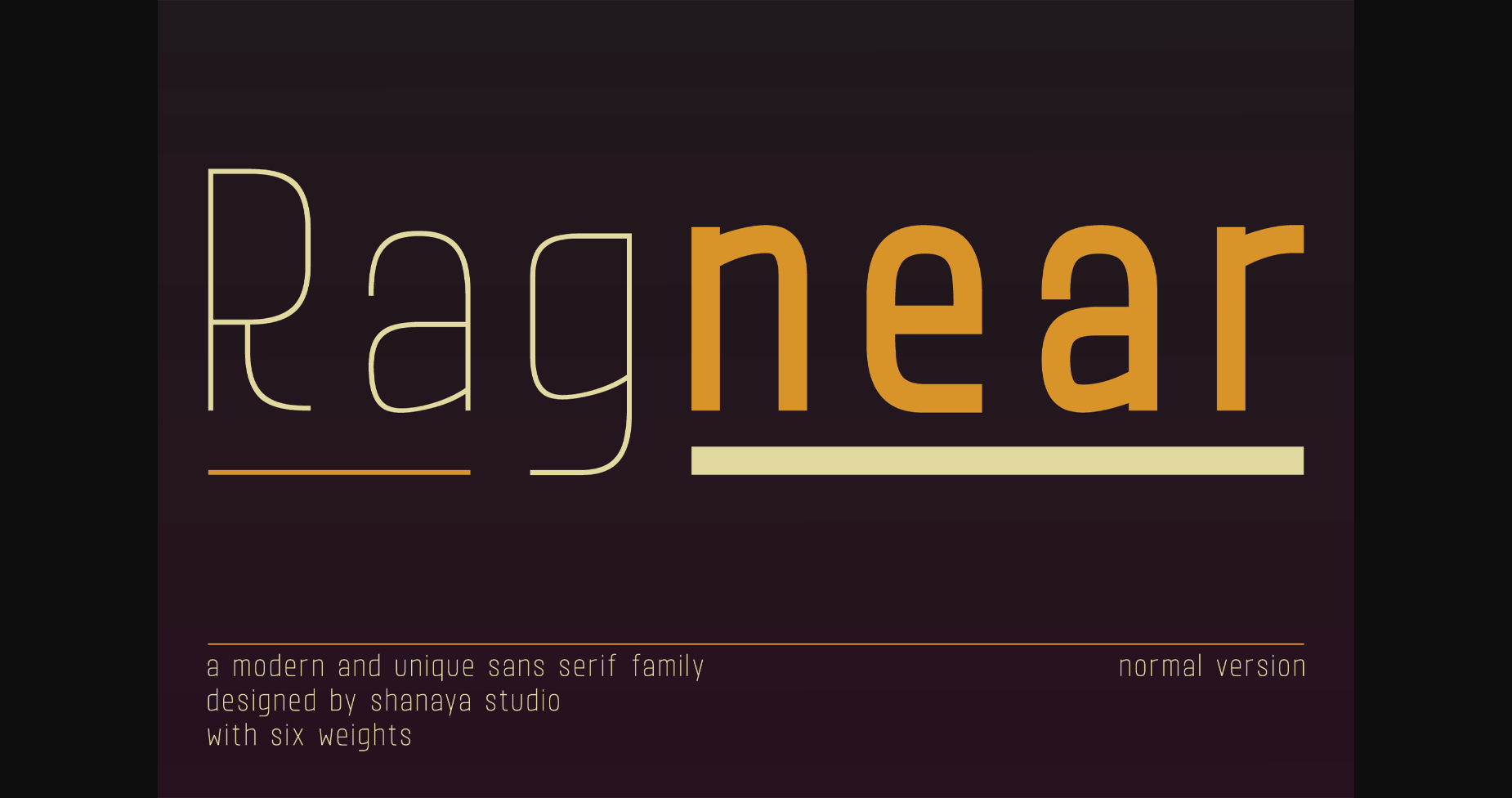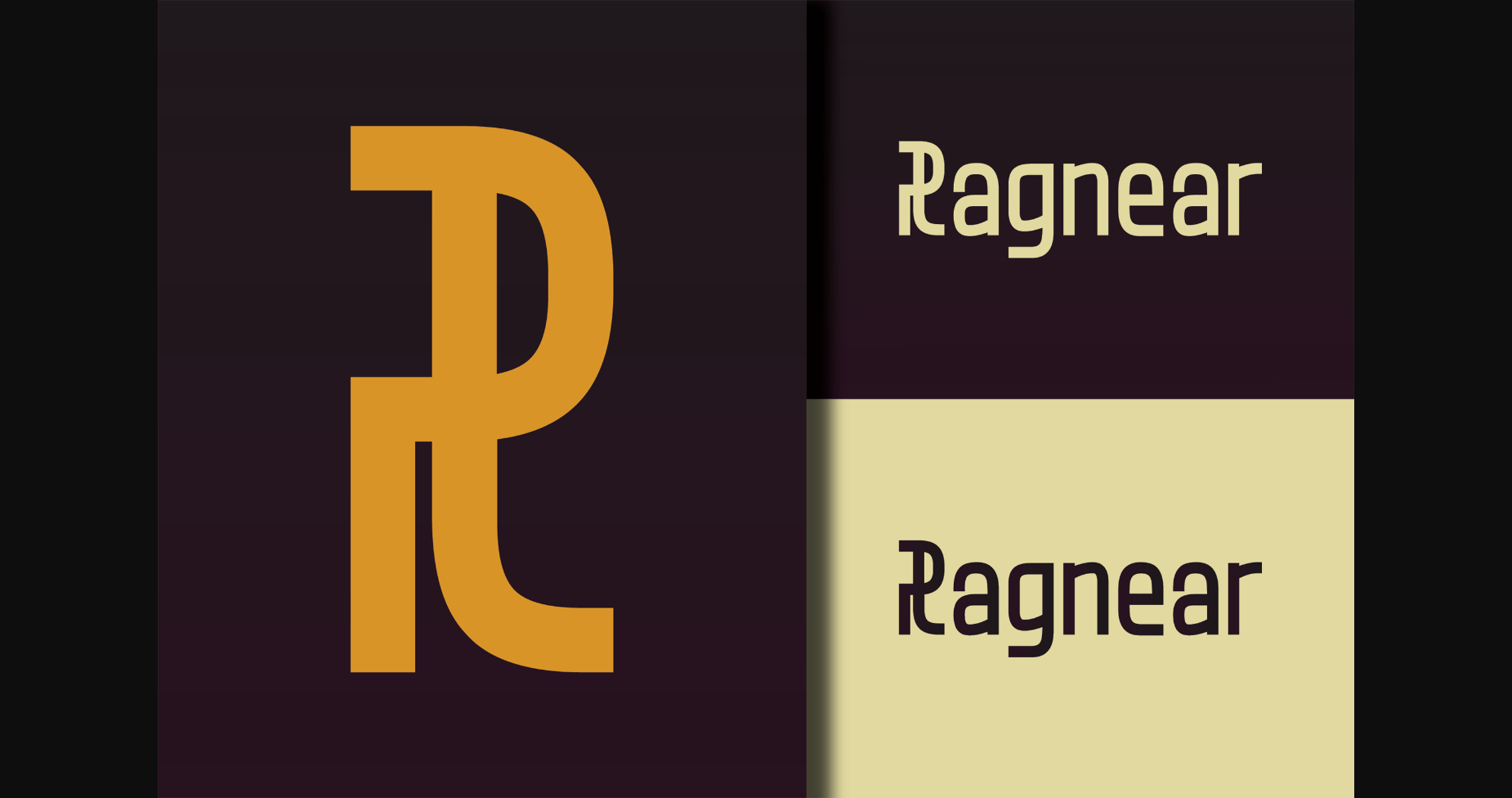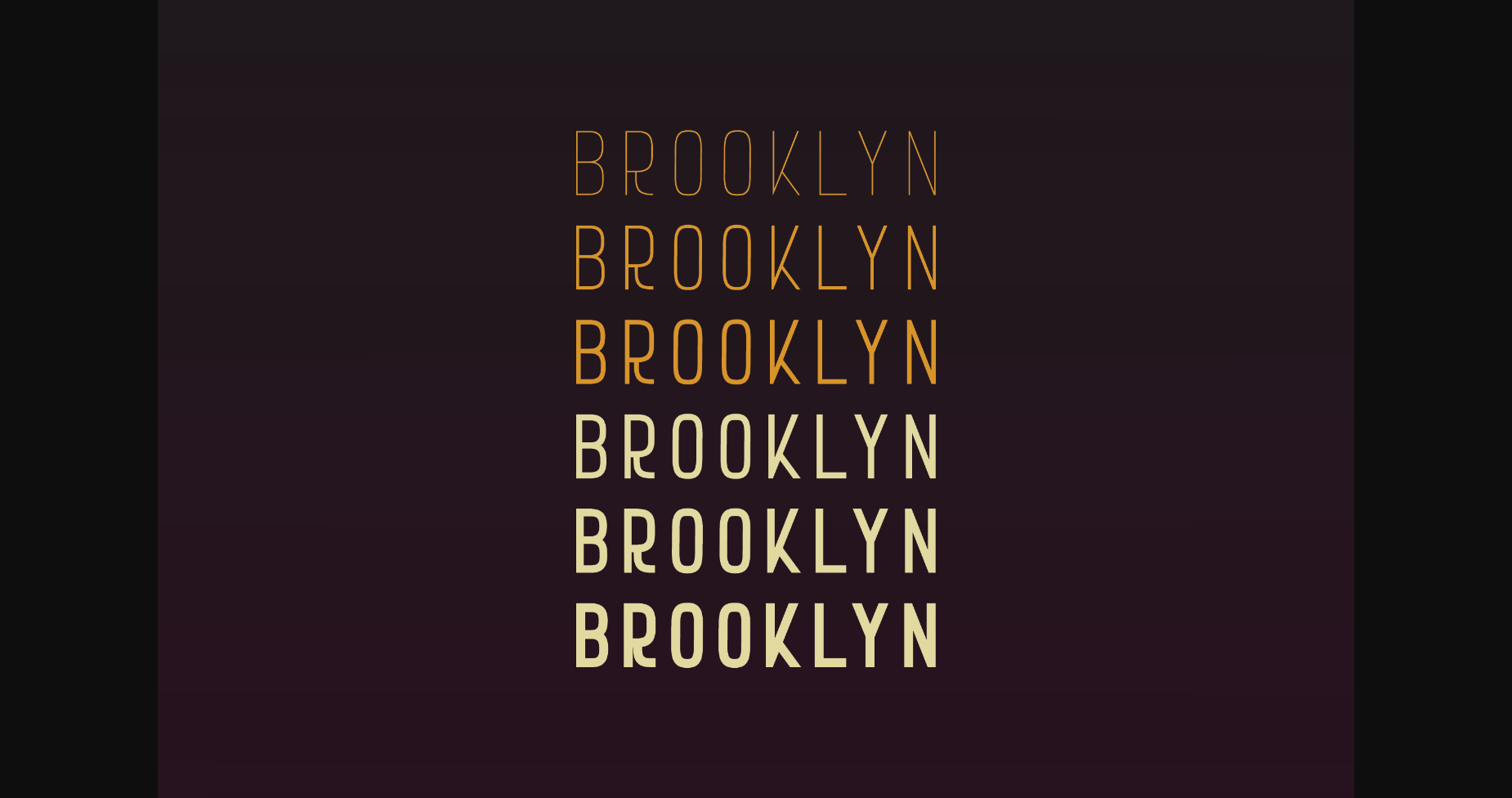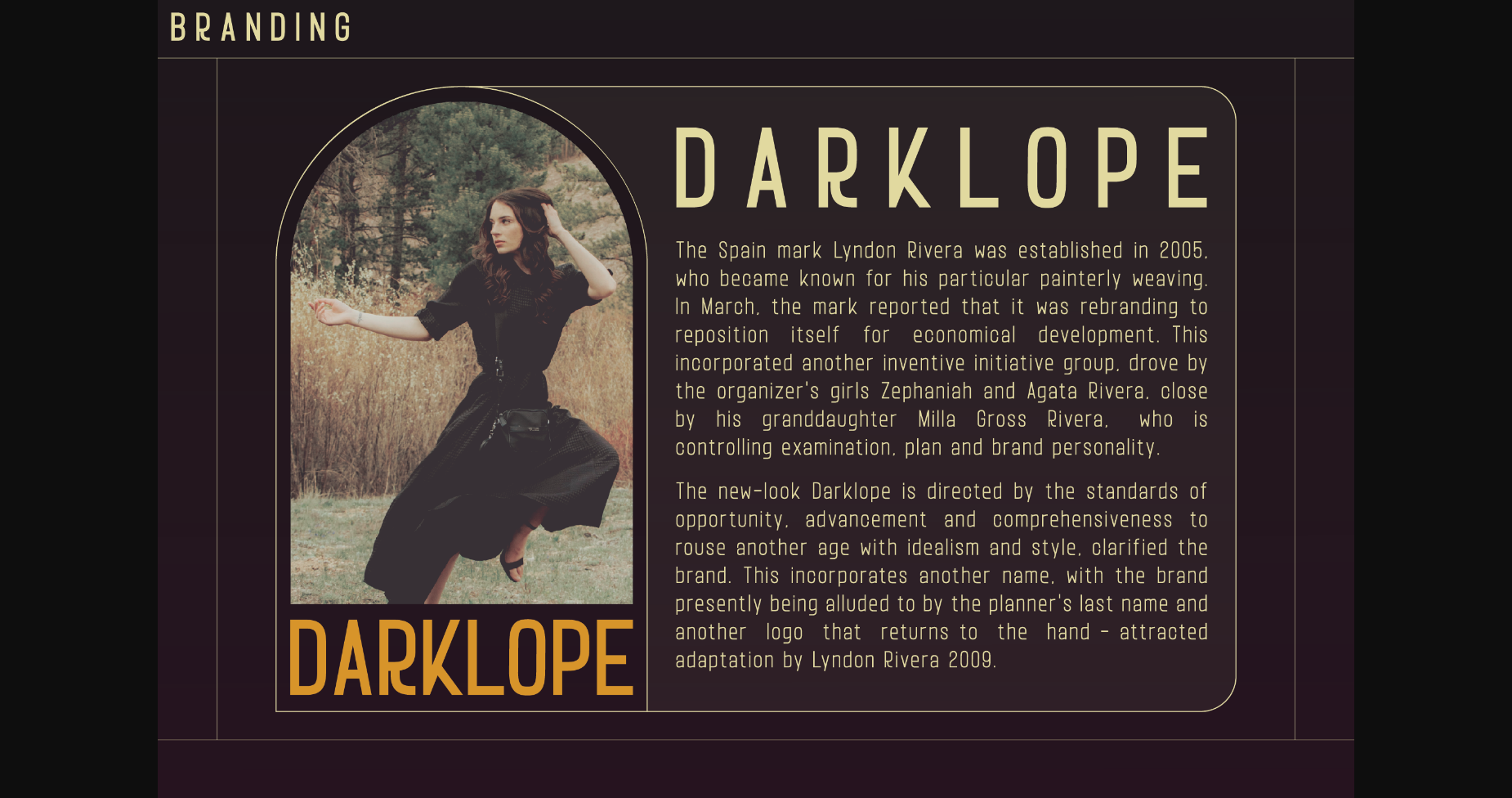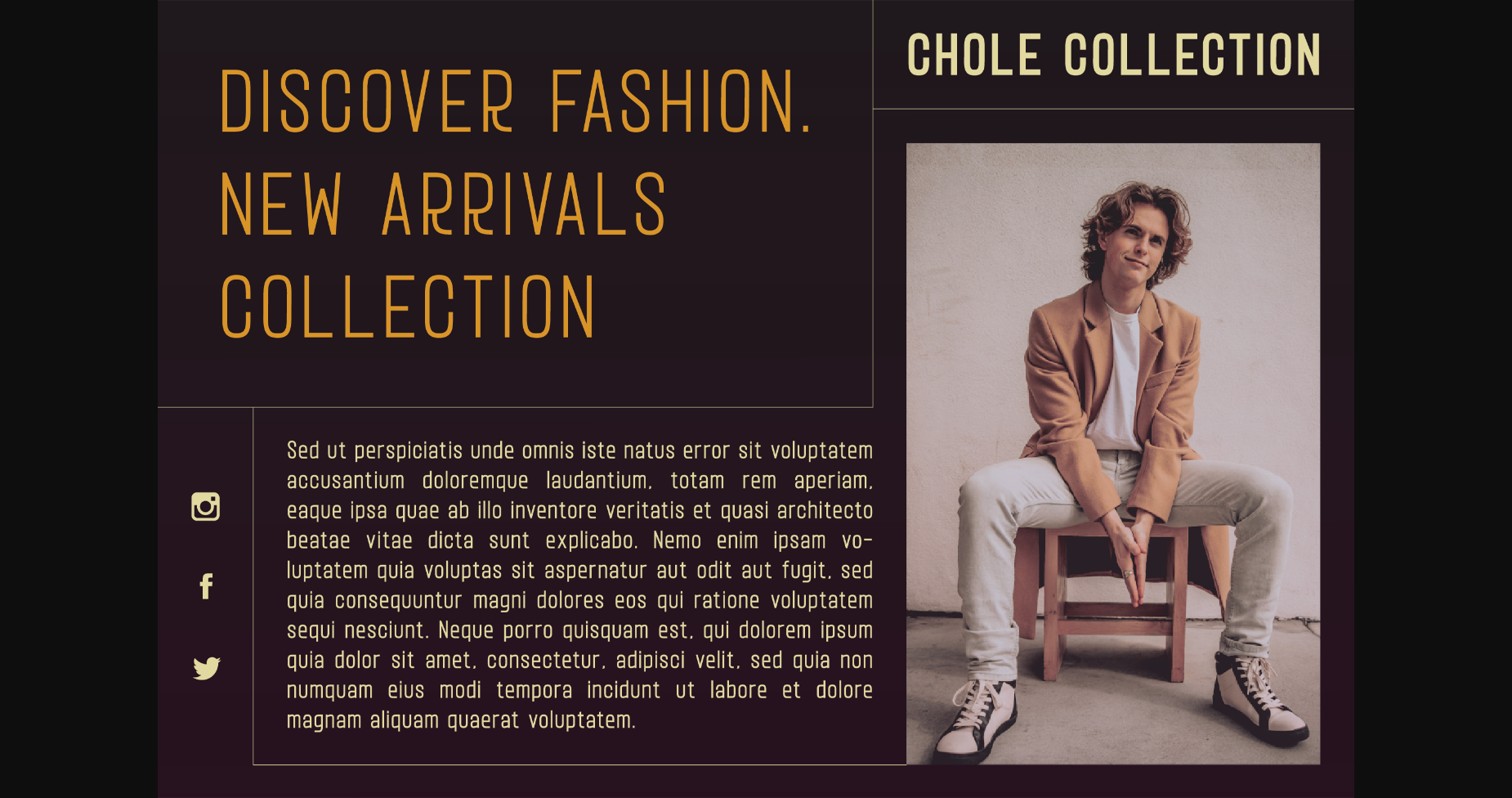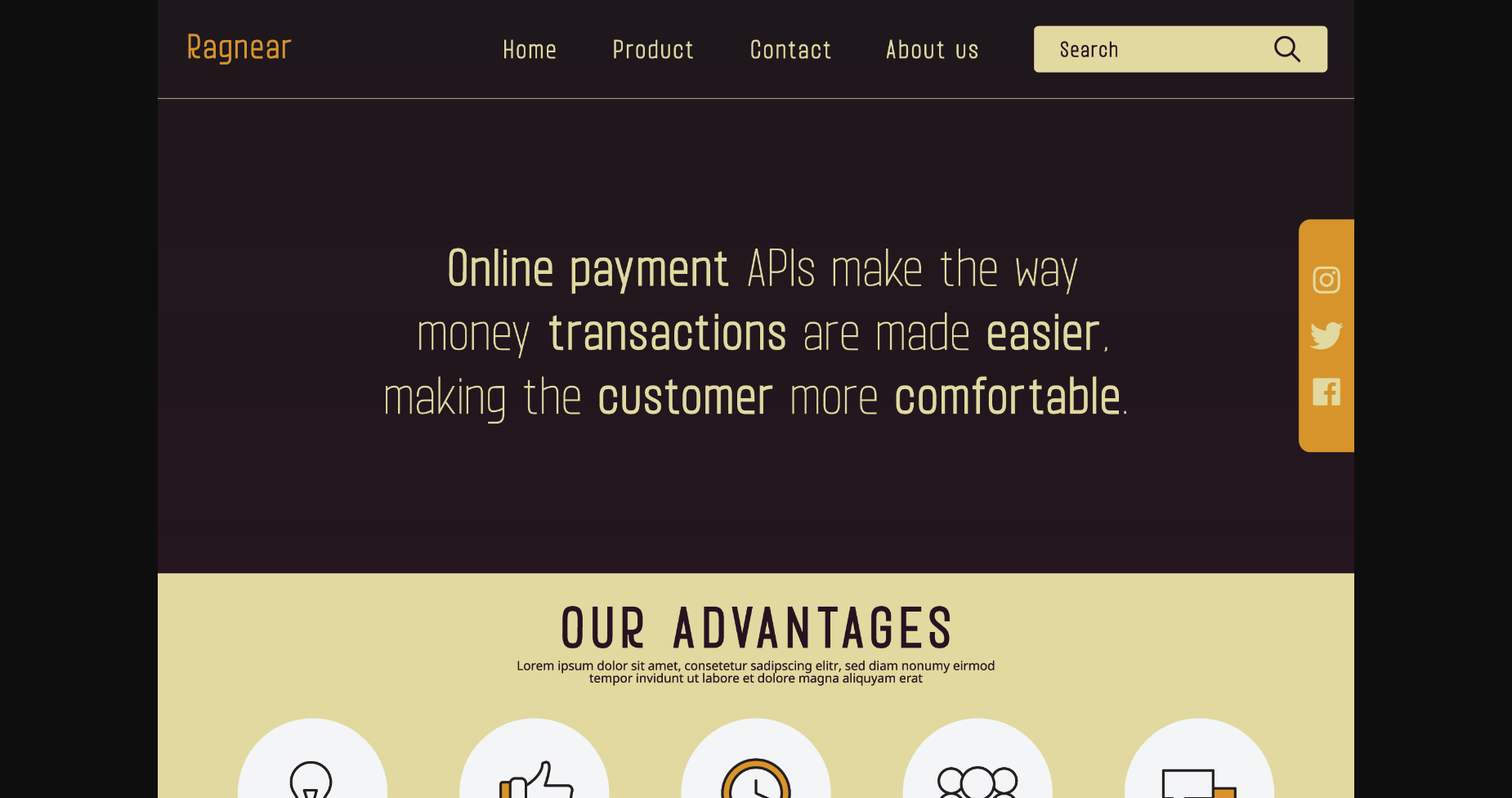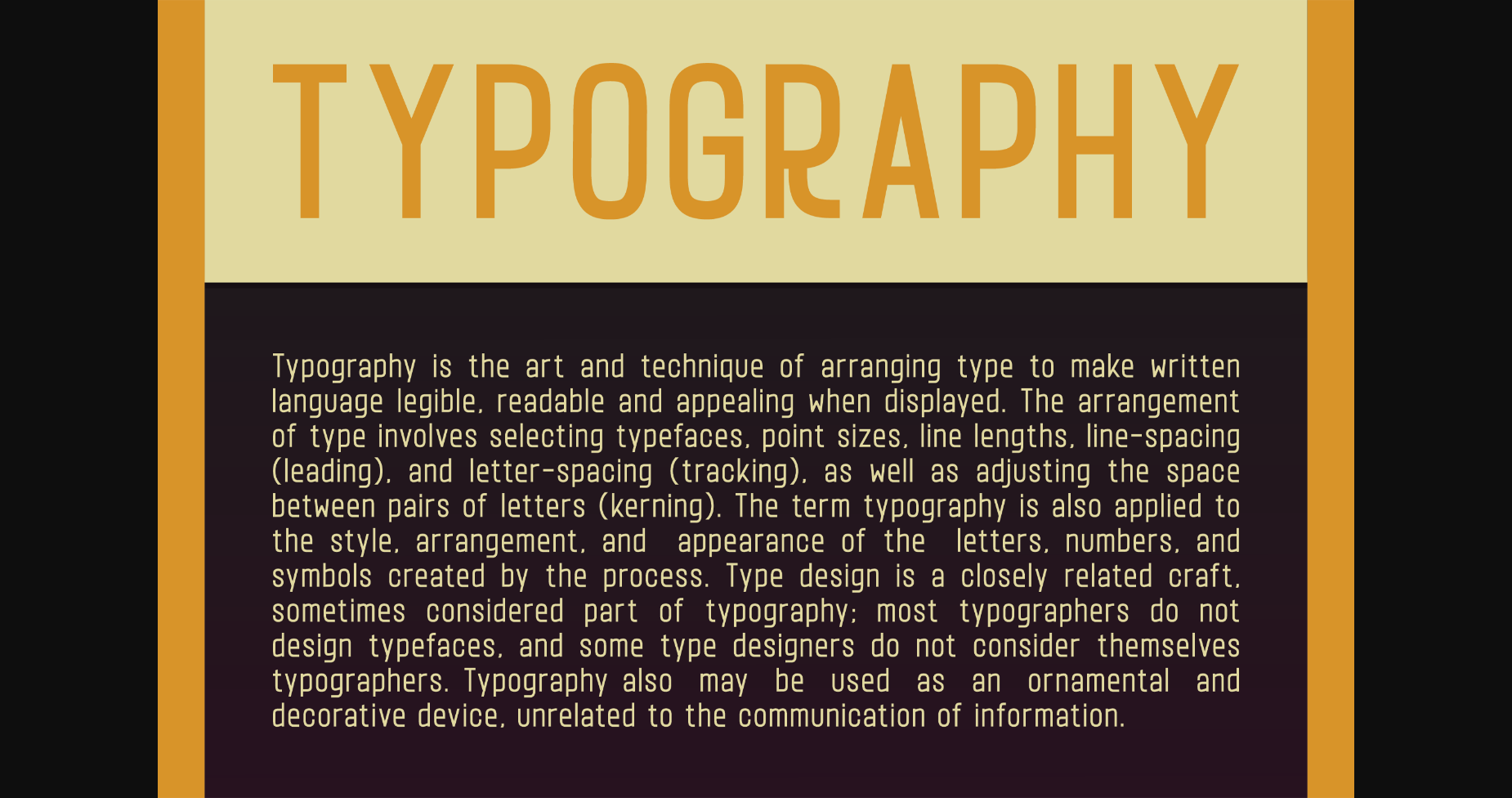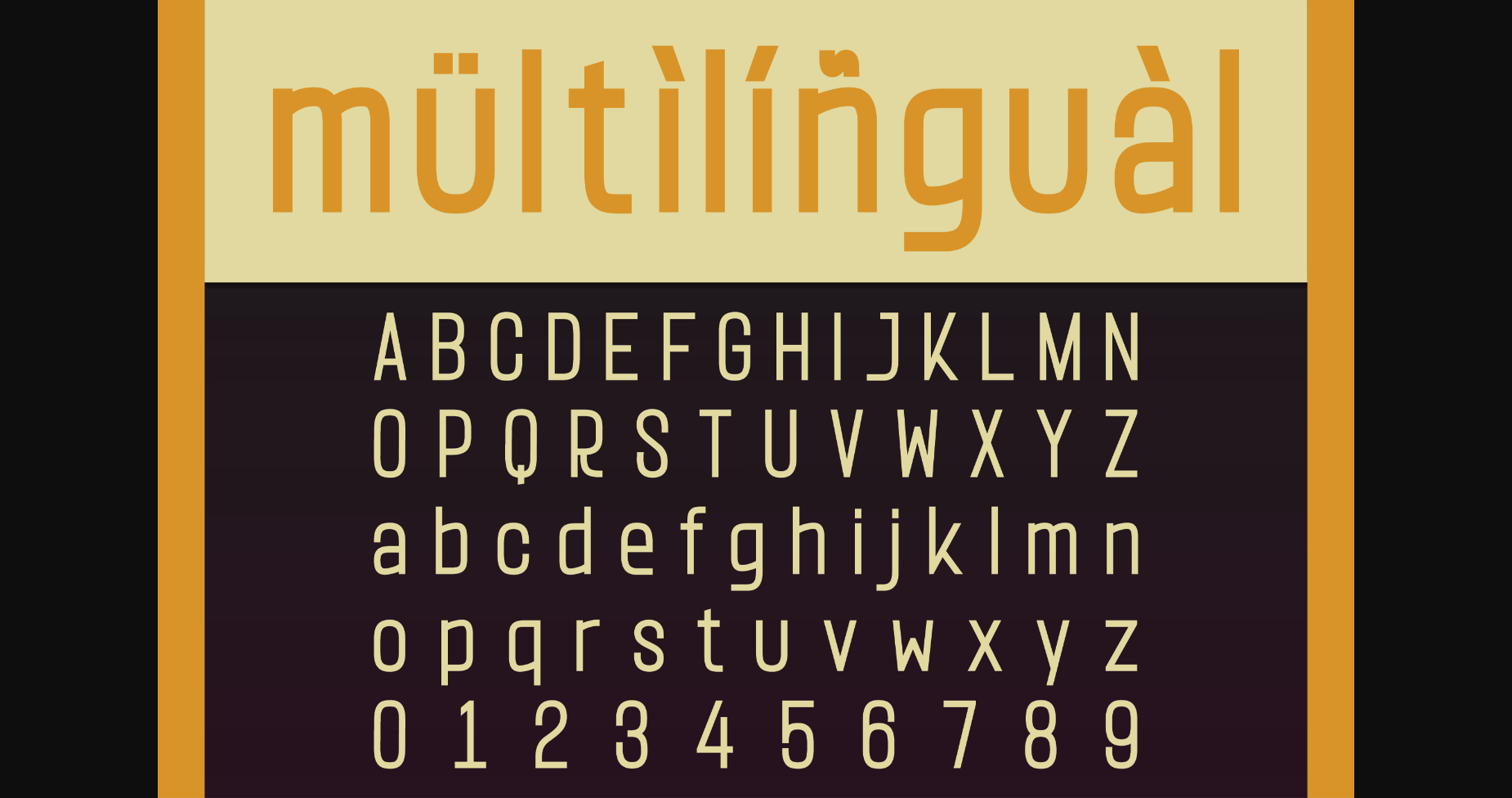
Ragnear Normal Version Font
About Ragnear Normal Version Font
Ragnear Normal Version is a clean sans serif font that adopts a modern style. The uniqueness of each letter gives a strong and charismatic impression. This font is suitable for websites, landing pages, posters, magazines, logos, logotypes, greetings, and more.